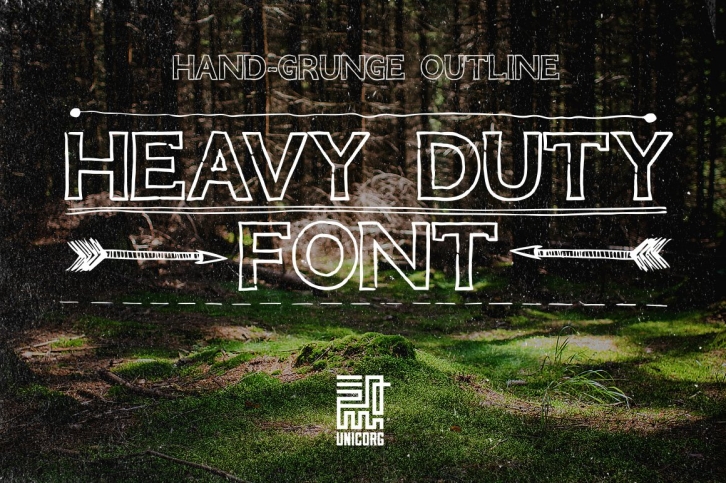
The font family is most suitable for headlines of all sizes. Hand Grunge Outline font is applicable for any type of graphic design in print graphics and perfect for logos, badges, t-shirts and other items like posters.
This is part of a 3-in-1 bigger font family (coming soon) including
Hand Grunge Regular (coming soon)
Hand Grunge Outline
Hand Grunge Black (coming soon)